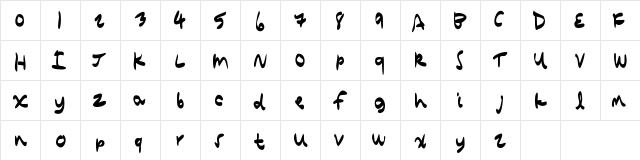
QuickComic Regular
Design Context for QuickComic Typeface
QuickComic has an approachable, lighthearted character — its loose, expressive forms are well-suited to children's content, casual branding, and fun-first design.
Font Pairing: Pairs well with a rounded or humanist sans for body copy, maintaining the friendly tone without relying on QuickComic to carry extended reading.
Pro Tip: Use QuickComic at larger display sizes where its expressive character can land. Pair with a clean, simple sans for body copy to maintain readability.